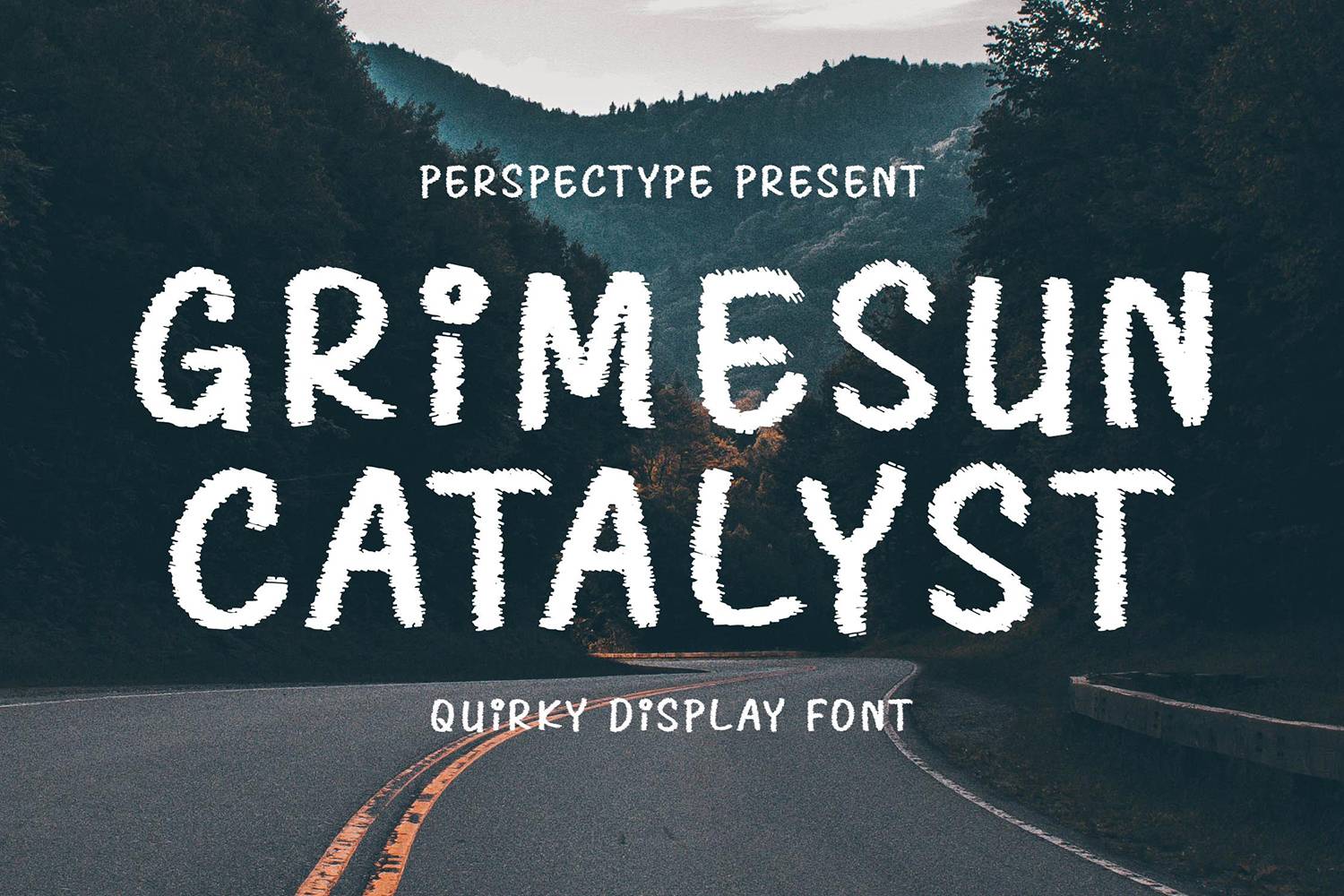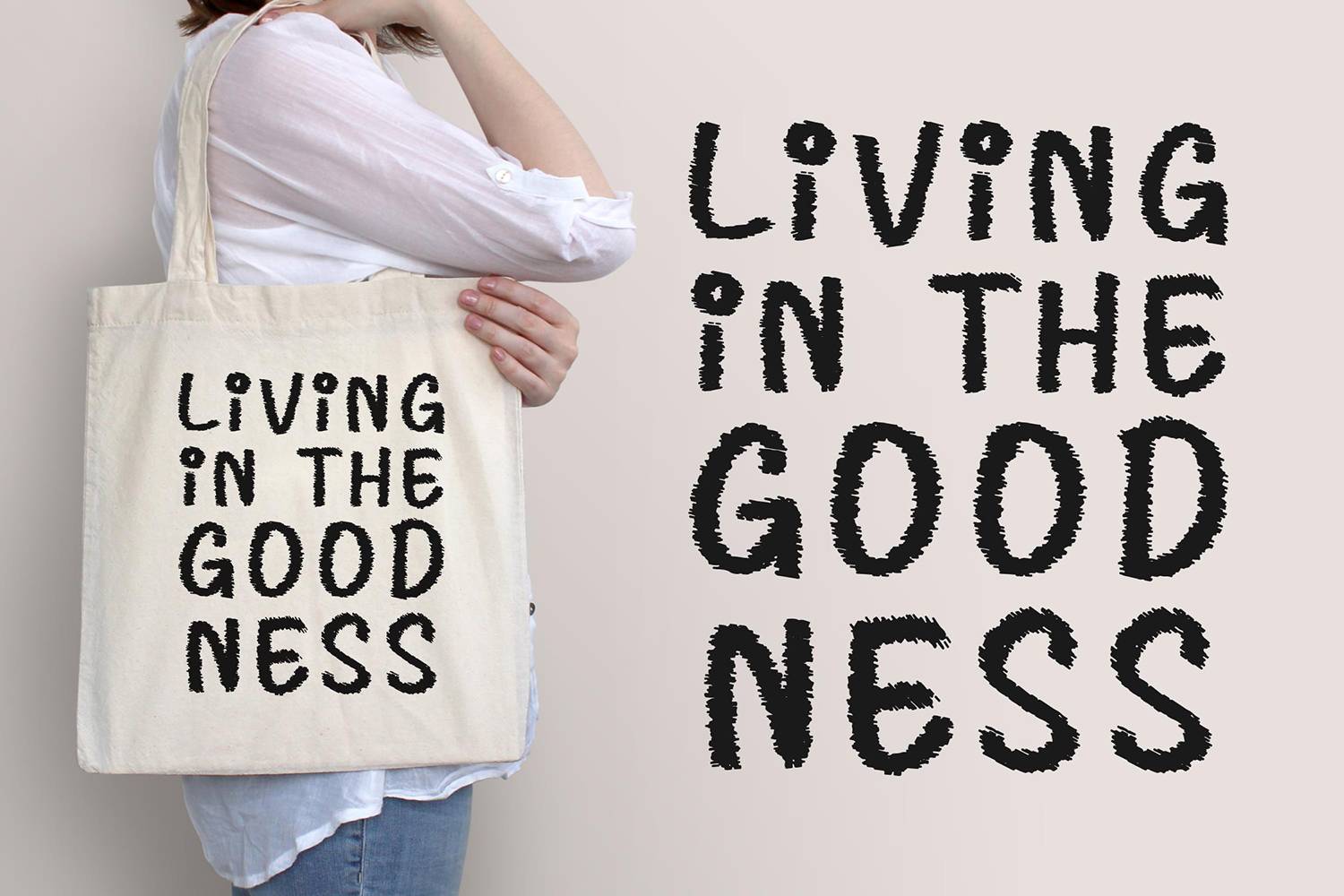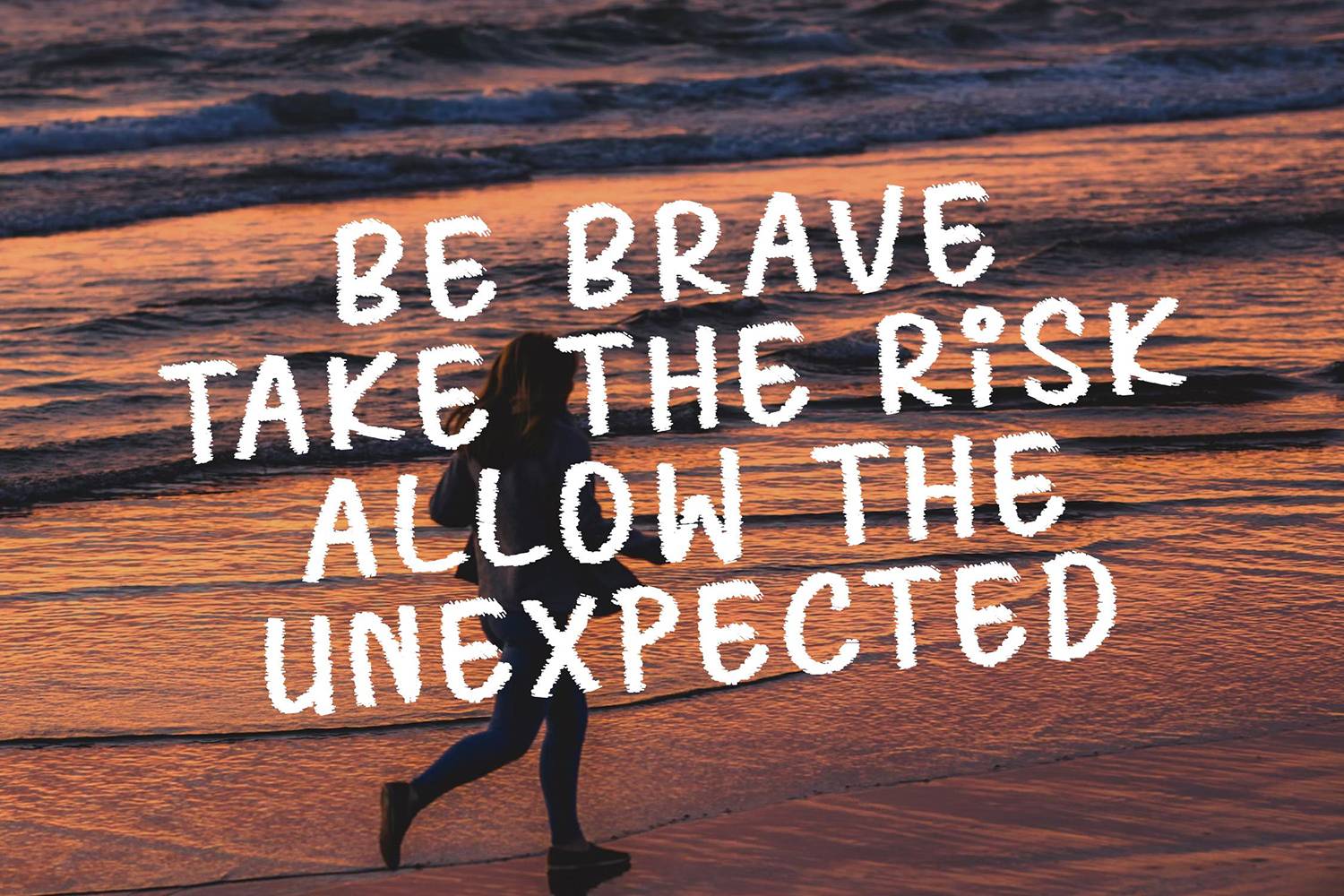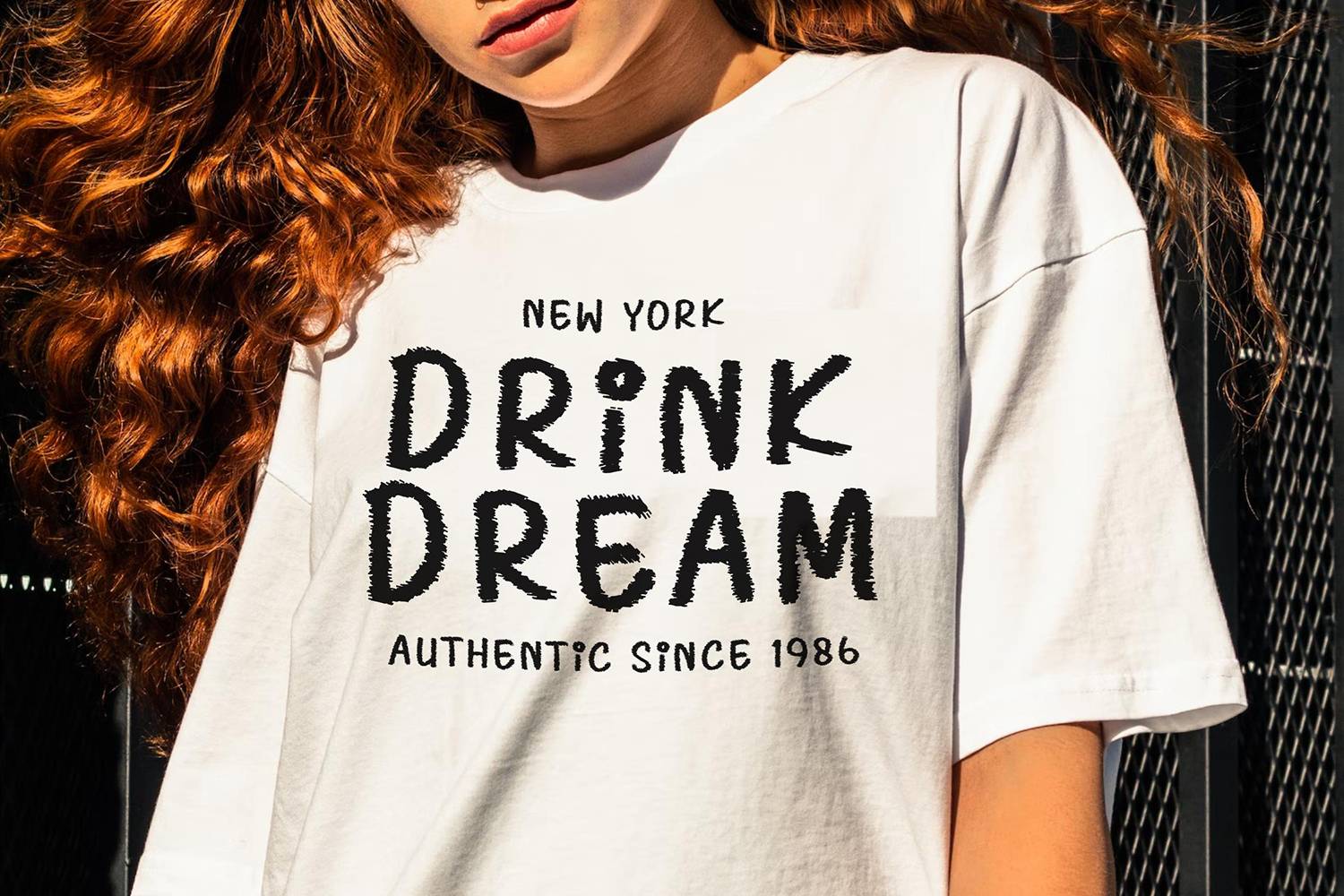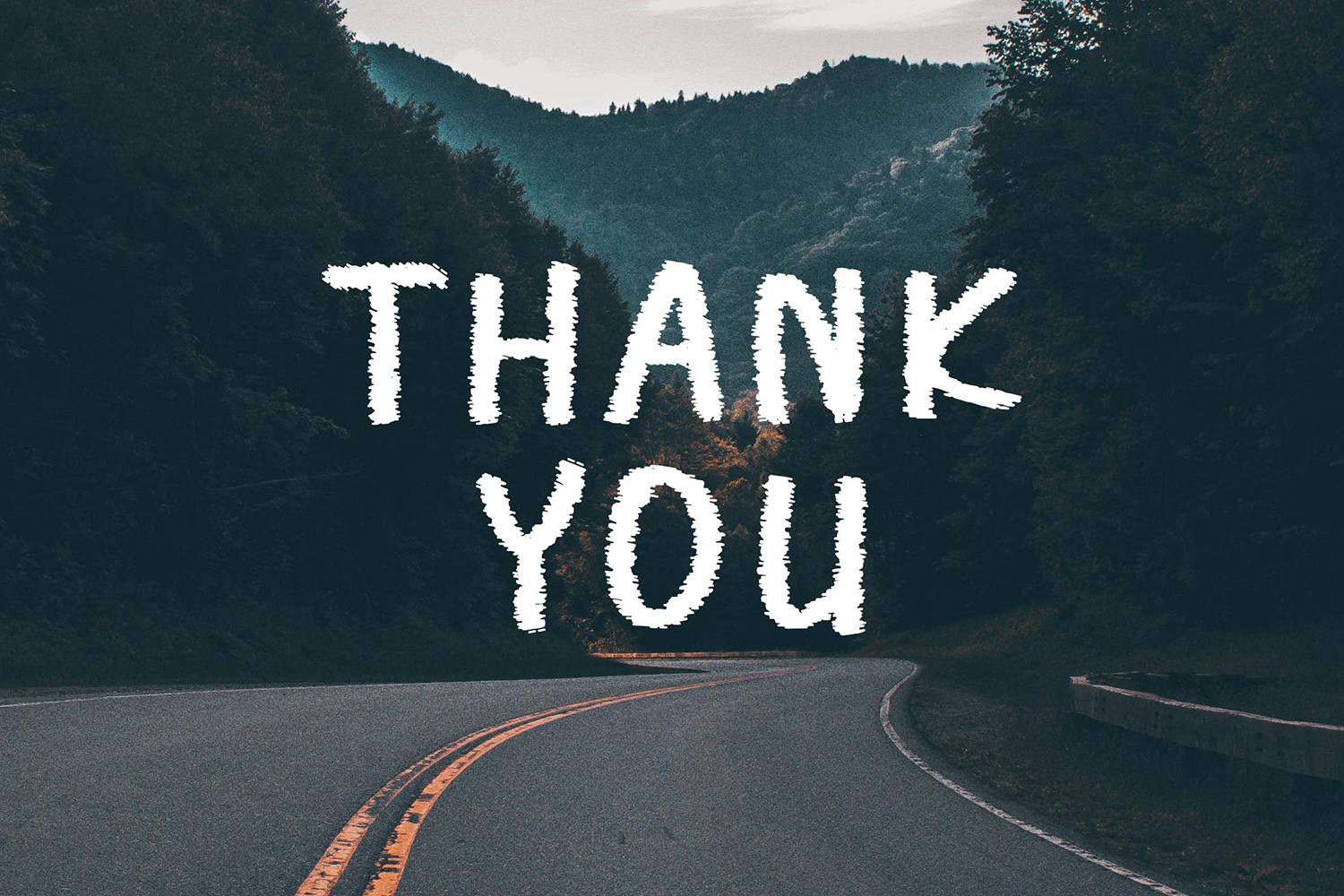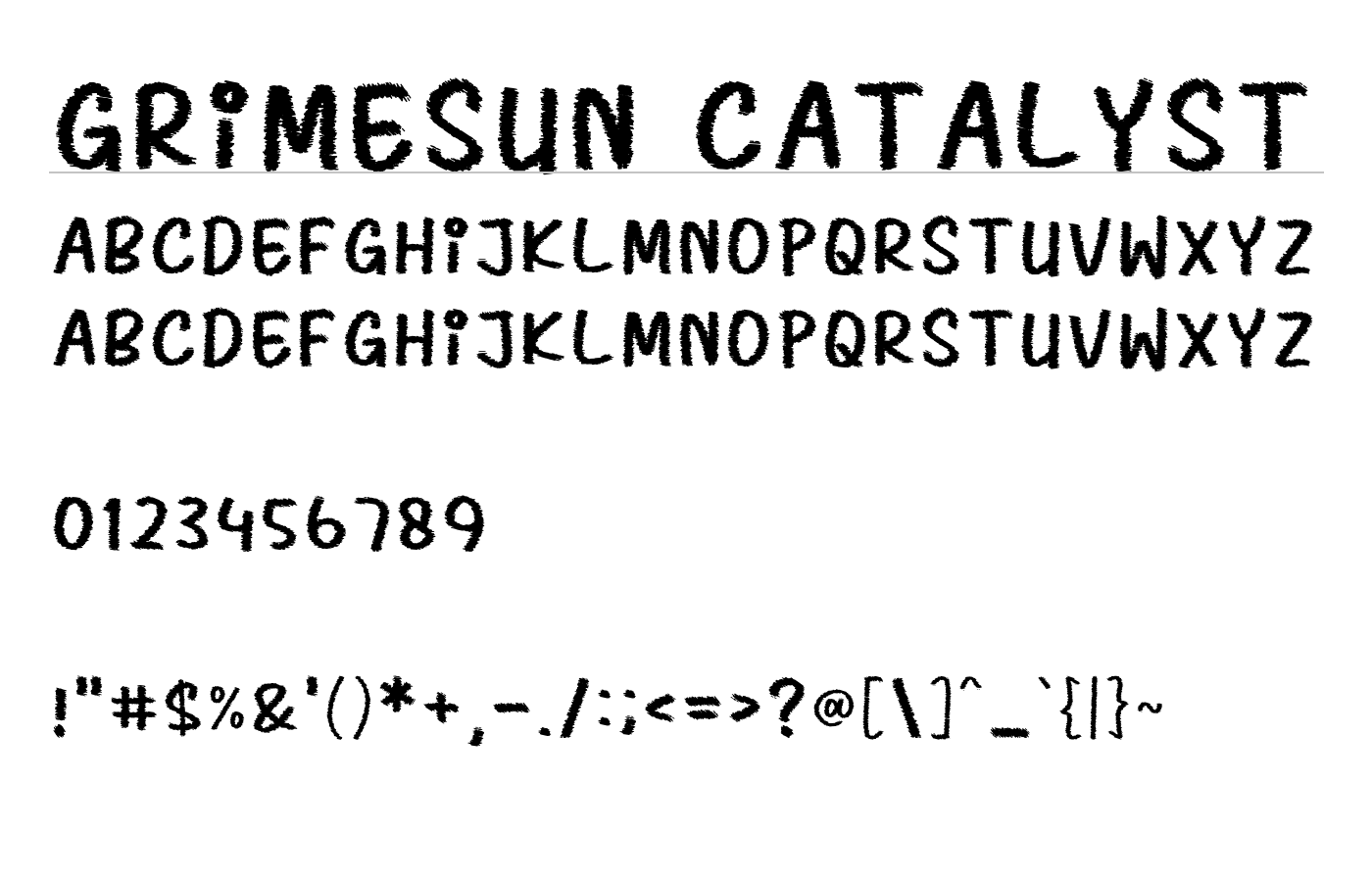
Grimesun Catalyst is a playful sans serif font with a textured, hand-drawn feel that adds personality and warmth. Its uneven strokes and irregular shapes give it a casual, artistic vibe, making it ideal for creative projects, informal branding, and eye-catching headlines. This font works best where a friendly, approachable atmosphere is desired, such as in posters, packaging, and youth-focused designs.
Grimesun Catalyst Font
About Grimesun Catalyst Font